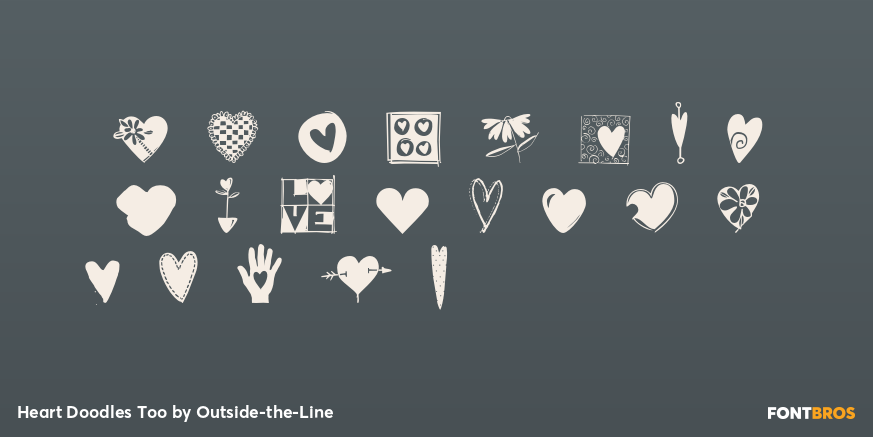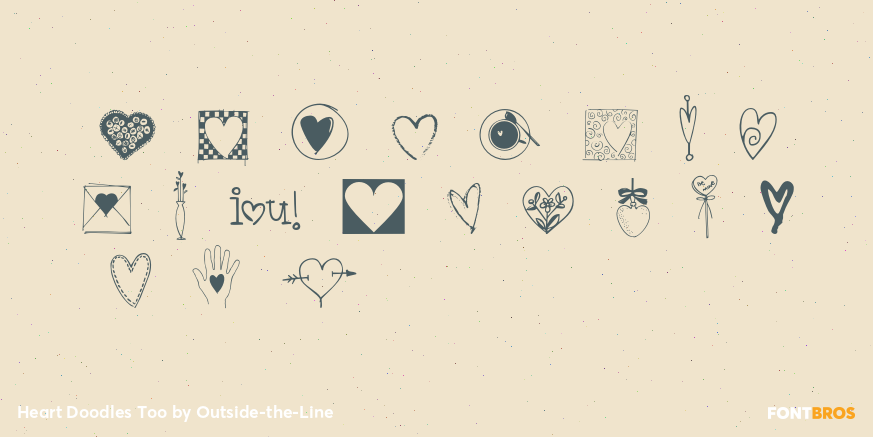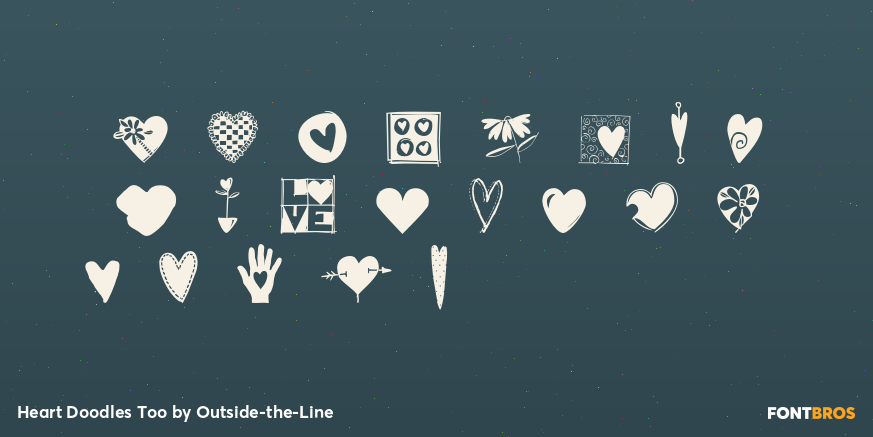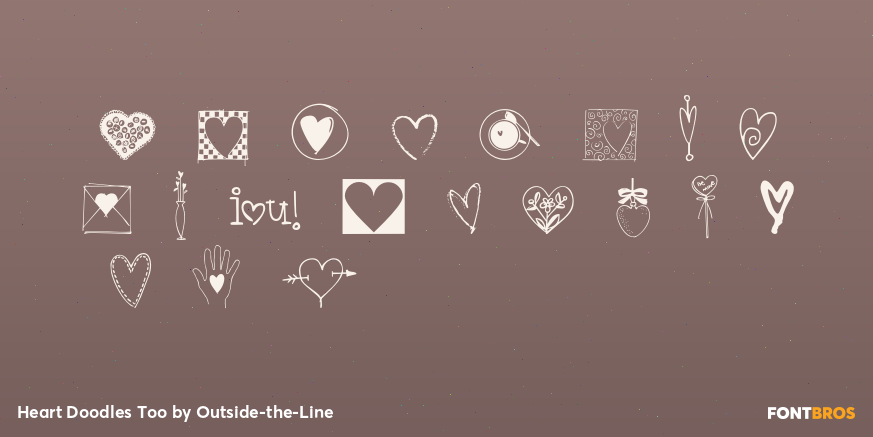
Heart Doodles Too
Font Family by Outside-the-Line
Heart Doodles Too is the follow up font to Heart Doodles. This one is a bit fussier and fancier and more detailed. 41 hearts for all your Valentine and Wedding needs.